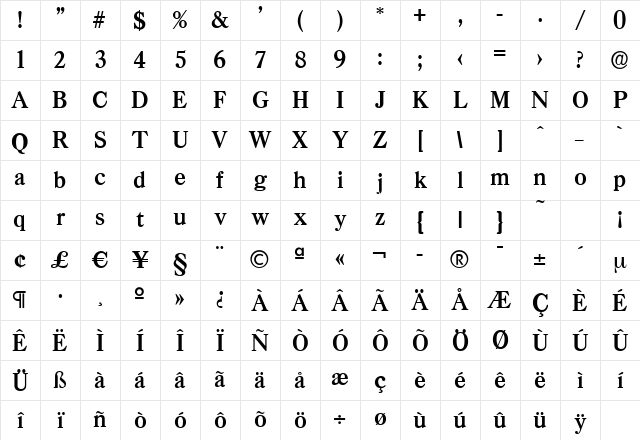
WesleyBecker Bold
Design Context for WesleyBecker
WesleyBecker is a composed and adaptable typeface that performs quietly and consistently across a wide range of design contexts. Its bold stroke weight gives it real presence on the page.
Pro Tip: Use WesleyBecker in both headline and body roles to test its range before committing to a single application.